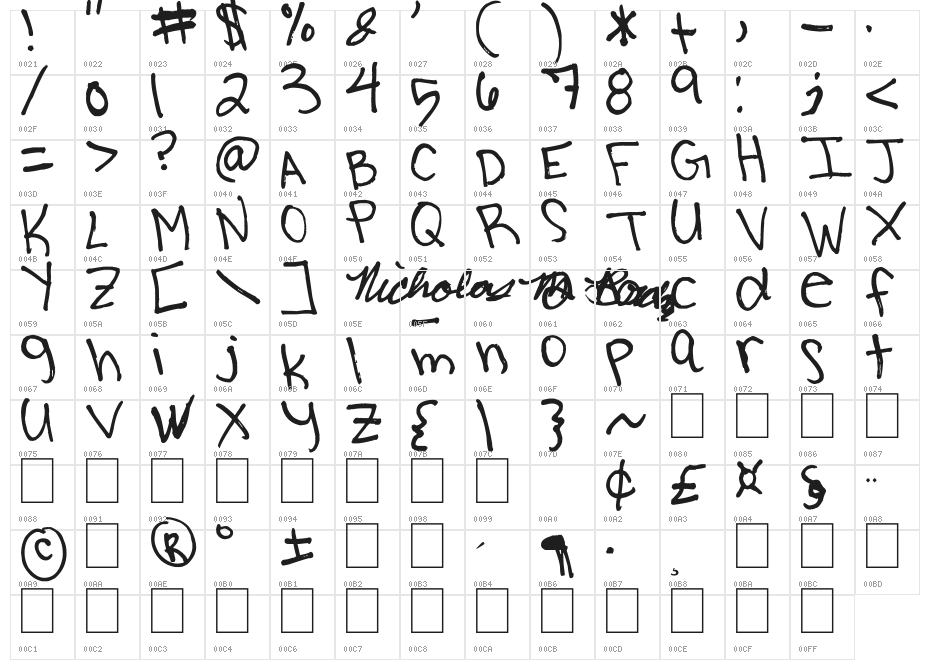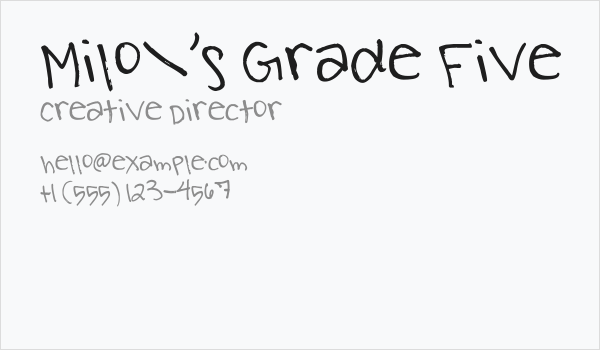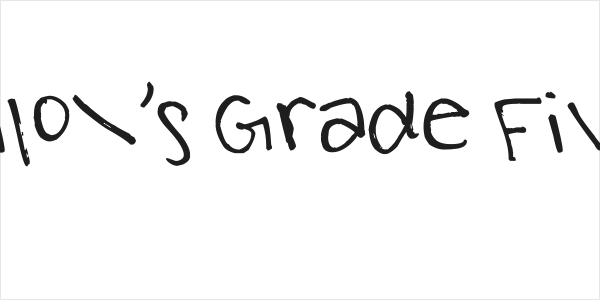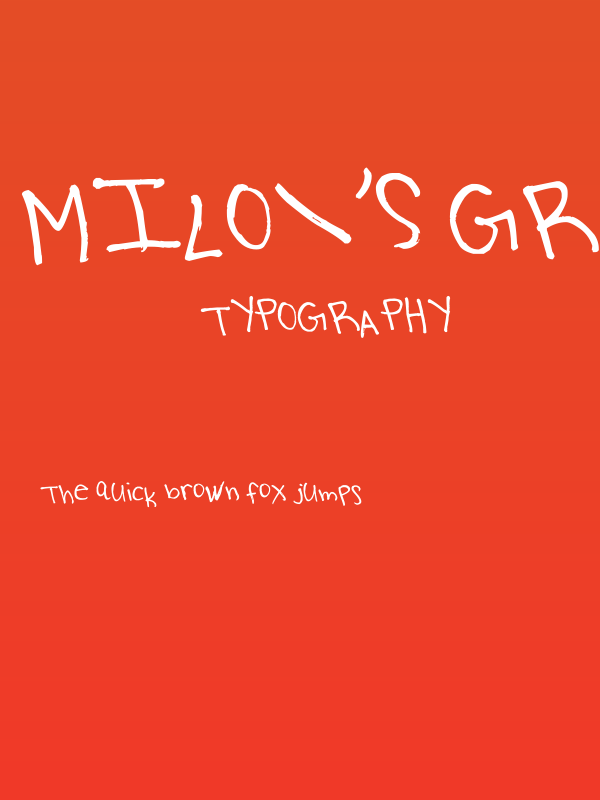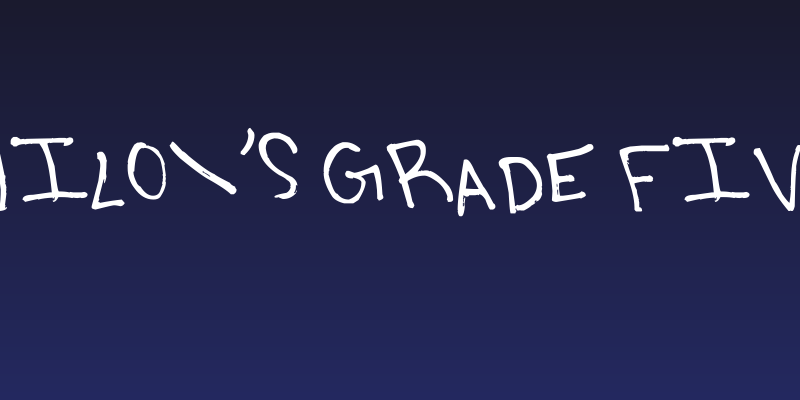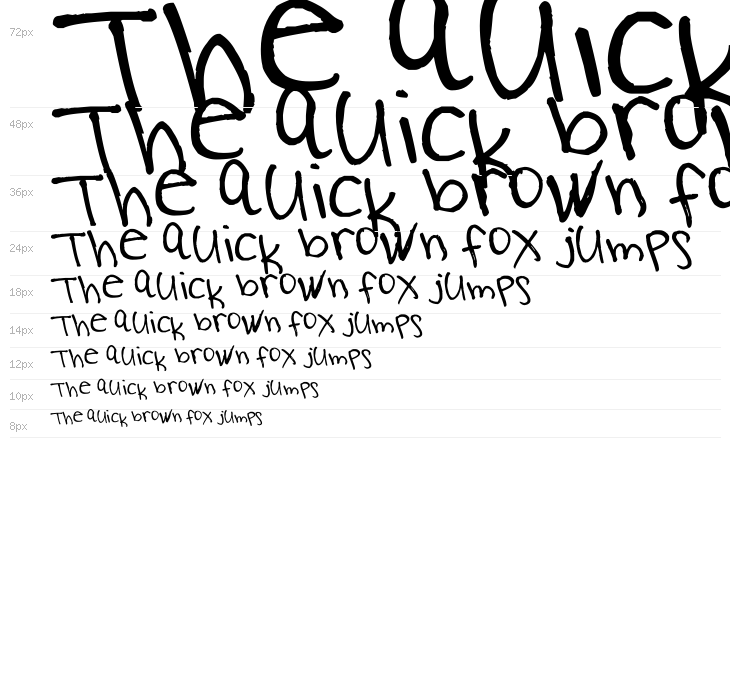
Milo's Grade Five Font
Milo's Grade Five Description
This font exudes a playful and informal vibe, reminiscent of a child's handwriting. The characters are uneven and slightly irregular, giving it a whimsical and authentic handwritten feel. The strokes are bold and somewhat rough, adding to its casual charm. Each letter has a unique personality, with varying heights and angles, which contributes to its lively and dynamic appearance. The numbers and special characters follow the same playful style, making it suitable for projects that require a personal touch.
Overall StyleCasual, Playful
Use CaseHeadlines, Informal texts, Creative projects
Proposed ProjectsIdeal for children's books, educational materials, greeting cards, and playful branding.